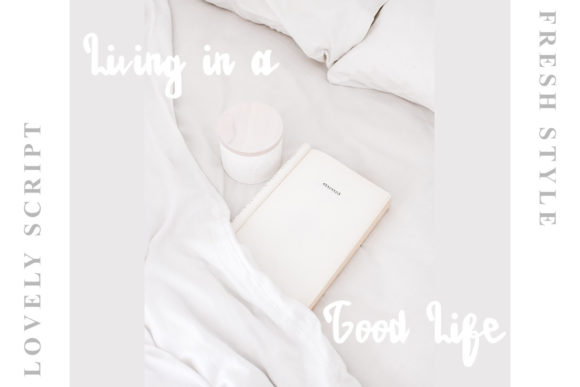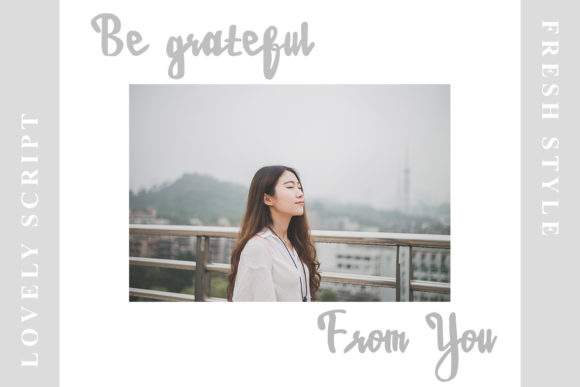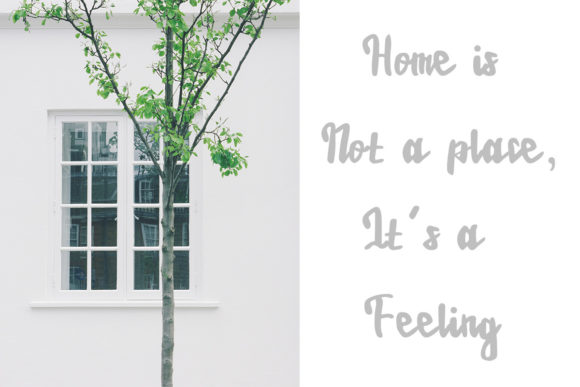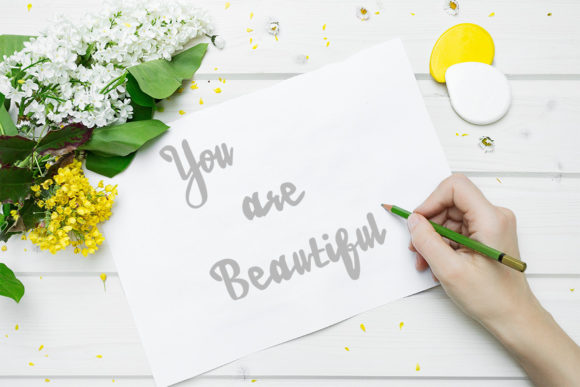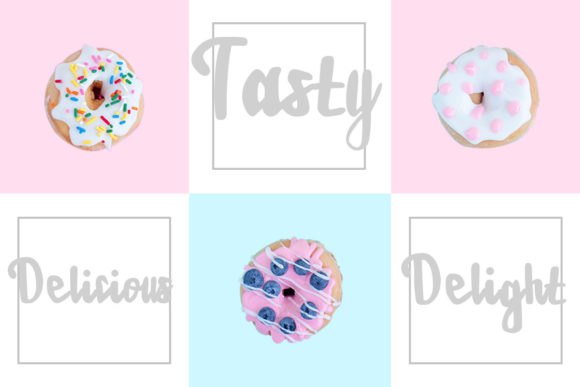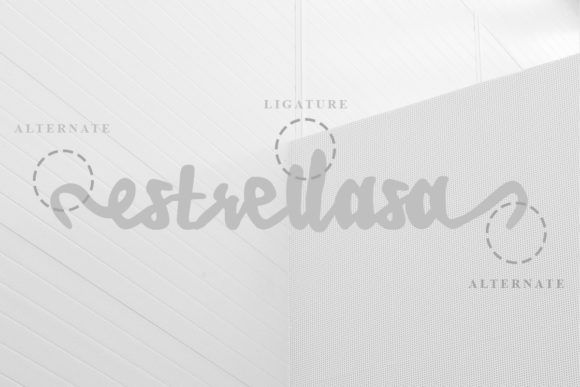
The Designer’s Delight: Exploring Estrellasa Font
This minimalist, casual, and modern script font has an extraordinary style that instantly caught my attention. Its light feel and effortless elegance made it the perfect fit for my client’s coffee shop brand. In this article, I’ll share my experience with Estrellasa Font, its features, and how to make the most of it in your designs.
What I Love About Estrellasa Font
- ✨ Unique yet approachable: Estrellasa Font strikes the perfect balance between modernity and elegance, making it suitable for a wide range of design projects.
- ✅ Light and airy feel: The font’s light weight and effortless flow make it perfect for creating visually appealing designs that don’t overwhelm the viewer.
- 💡 OpenType features: Estrellasa Font comes with a range of OpenType features, including stylistic alternates, ligatures, and glyphs, giving you plenty of creative options.
While Estrellasa Font is an excellent choice for many design projects, there are a few things to keep in mind:
- ⚠️ Limited use in formal contexts: Due to its casual and modern nature, Estrellasa Font may not be the best fit for formal or traditional designs, such as luxury brands or government institutions.
- 🤔 Kerning issues: As with any font, you may encounter kerning issues when using Estrellasa Font in certain contexts. Be sure to adjust the kerning to ensure optimal readability.
The Story Behind Estrellasa Font
Estrellasa Font was designed by a team of typographers who wanted to create a font that was both modern and elegant. Inspired by the beauty of starry night skies, the designers aimed to capture the essence of celestial wonder in their font. The result is a font that’s both unique and approachable, perfect for designs that require a touch of magic.
Q: What is Estrellasa Font?
Estrellasa Font is a modern script font with a minimalist, casual feel. It’s perfect for designs that require a touch of elegance and sophistication.